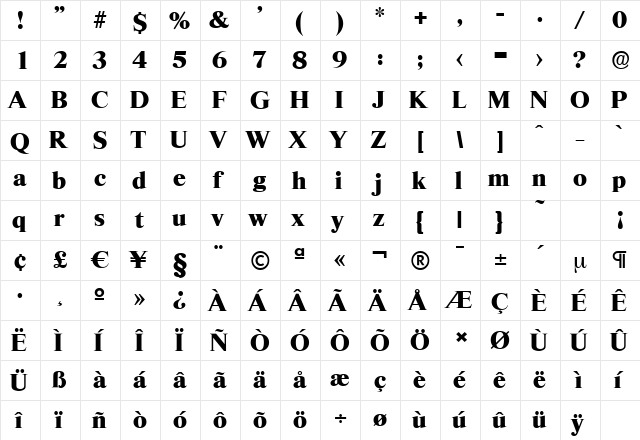
ThamesSerial-Heavy Regular Font Preview
ThamesSerial-Heavy Regular
ThamesSerial-Heavy Regular Font Details
Design Context for ThamesSerial-Heavy Typeface
ThamesSerial-Heavy is a composed and adaptable typeface that performs quietly and consistently across a wide range of design contexts.